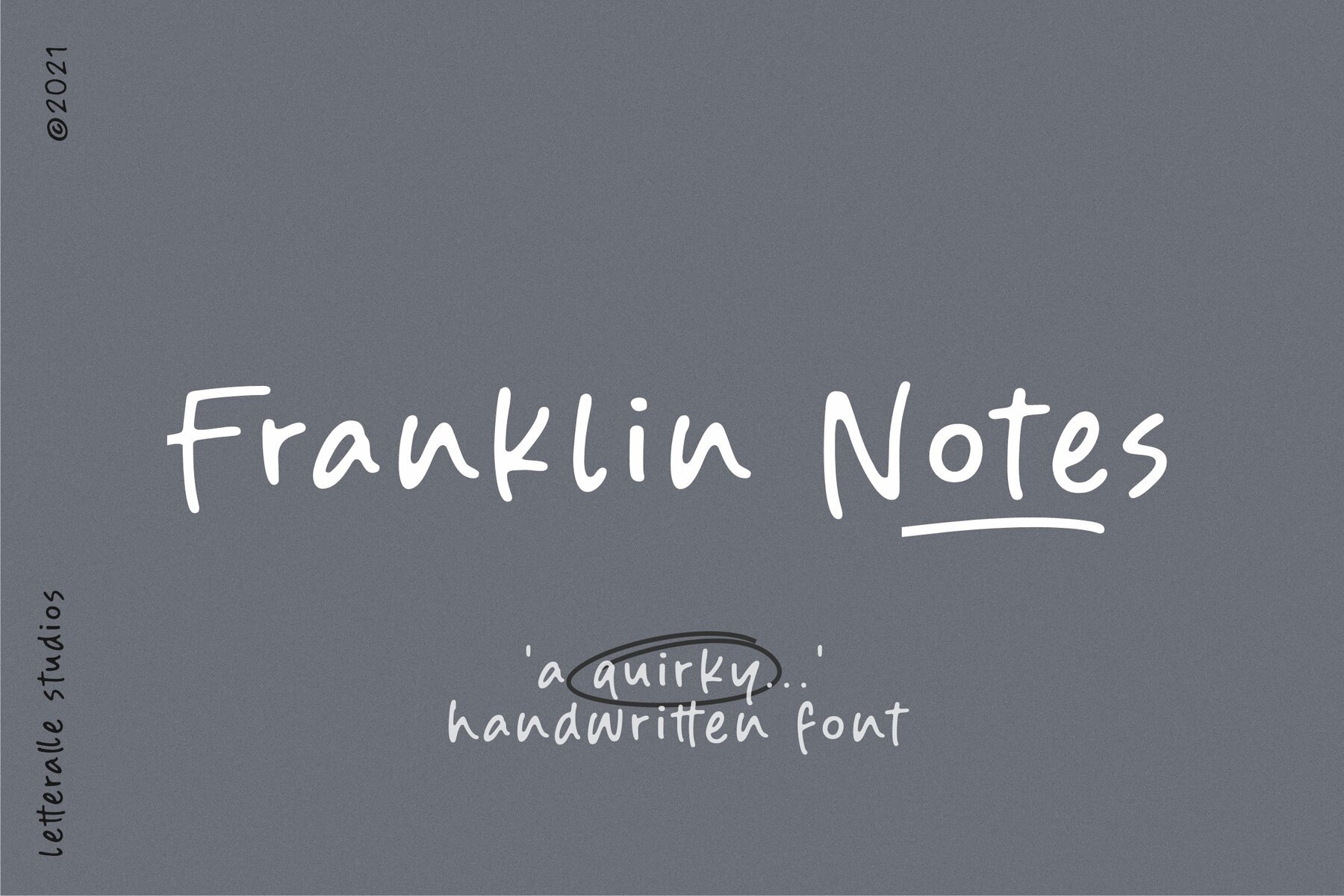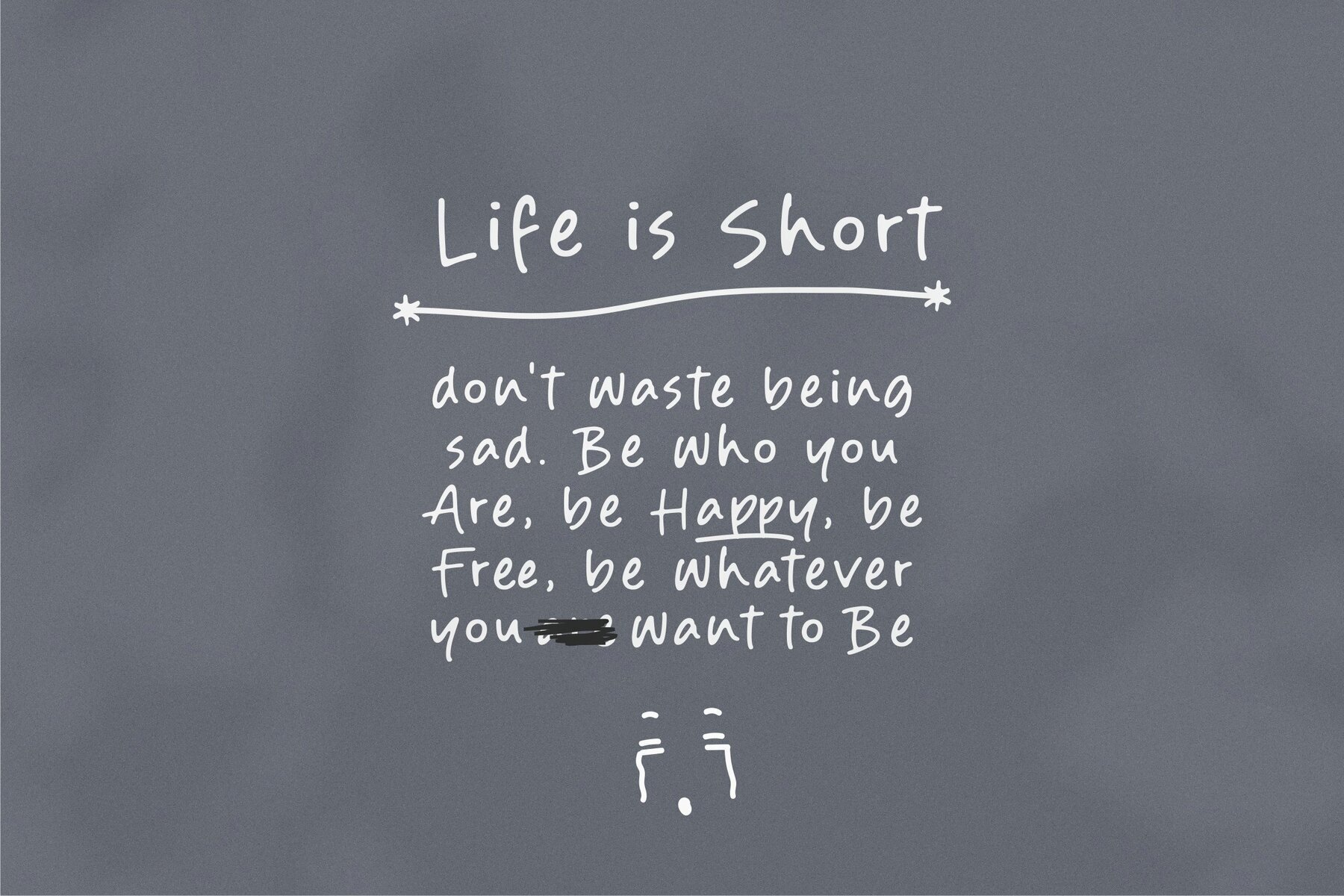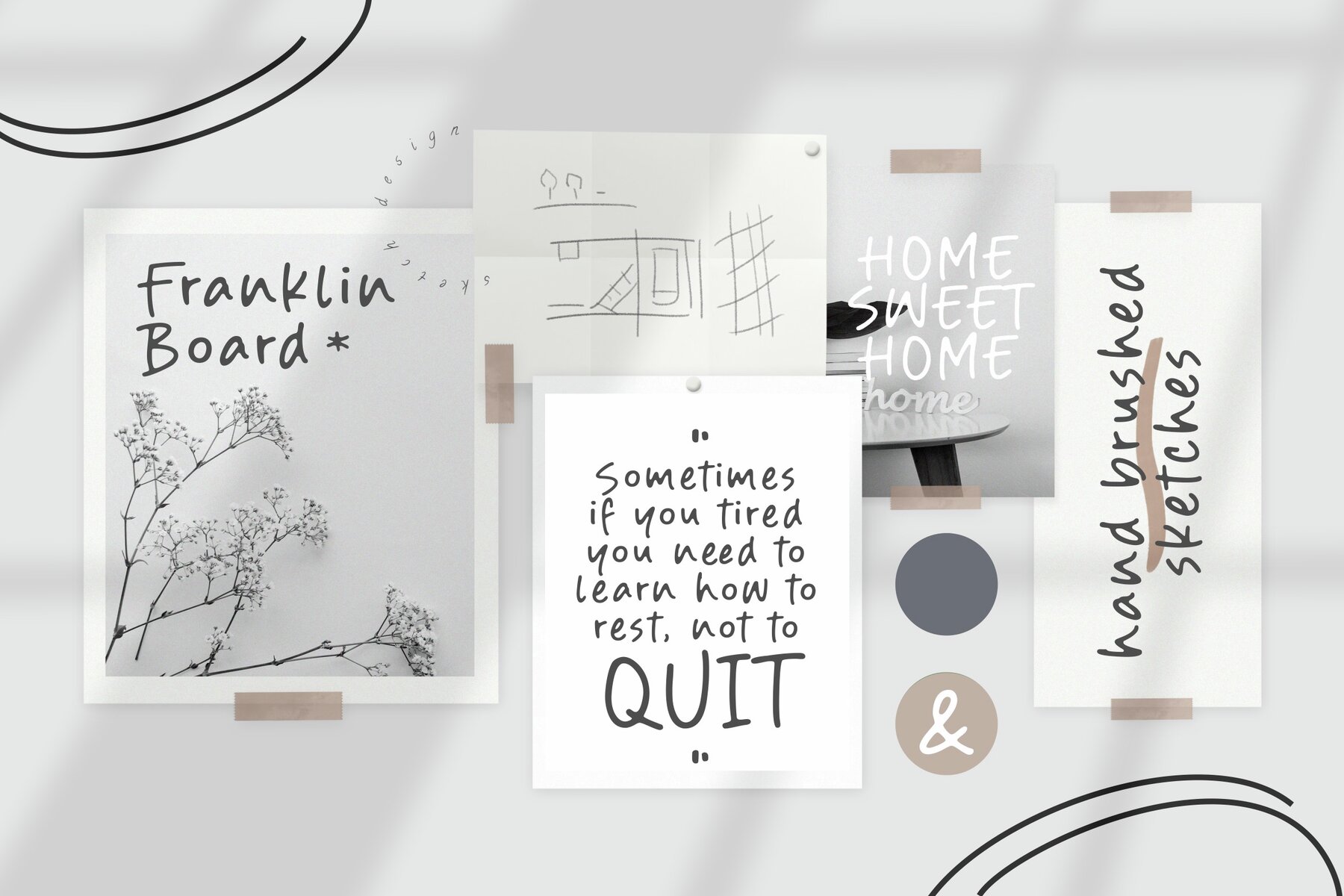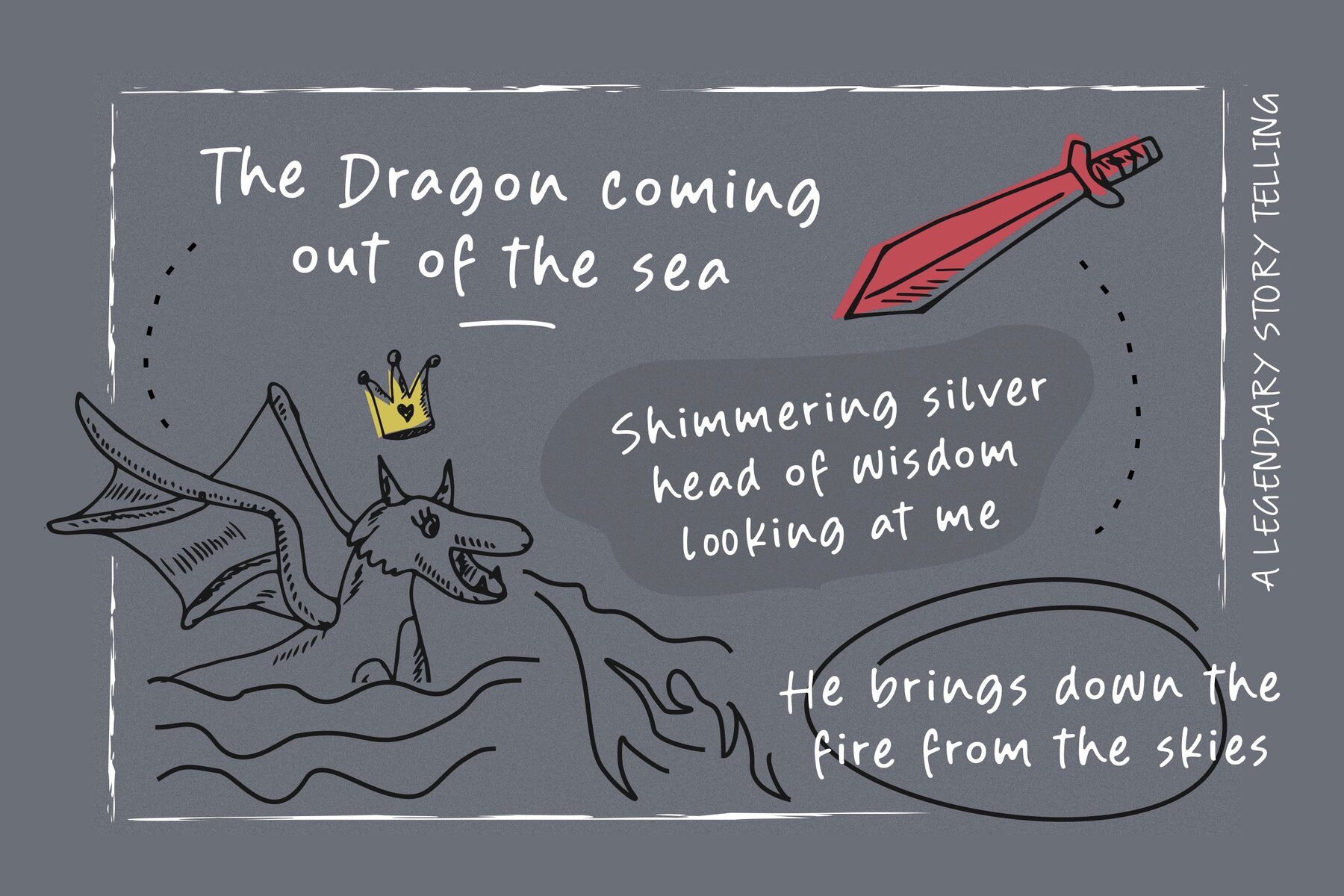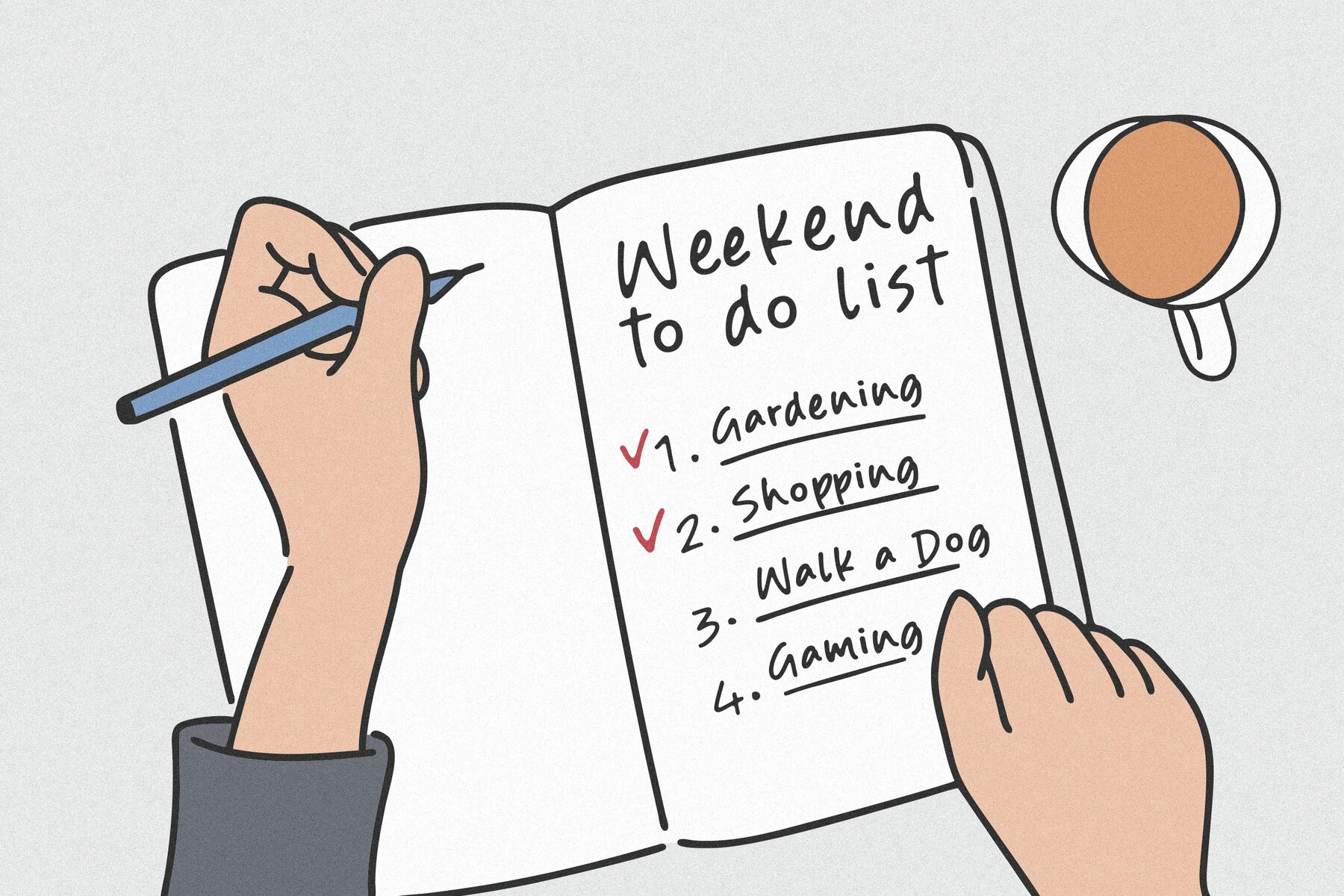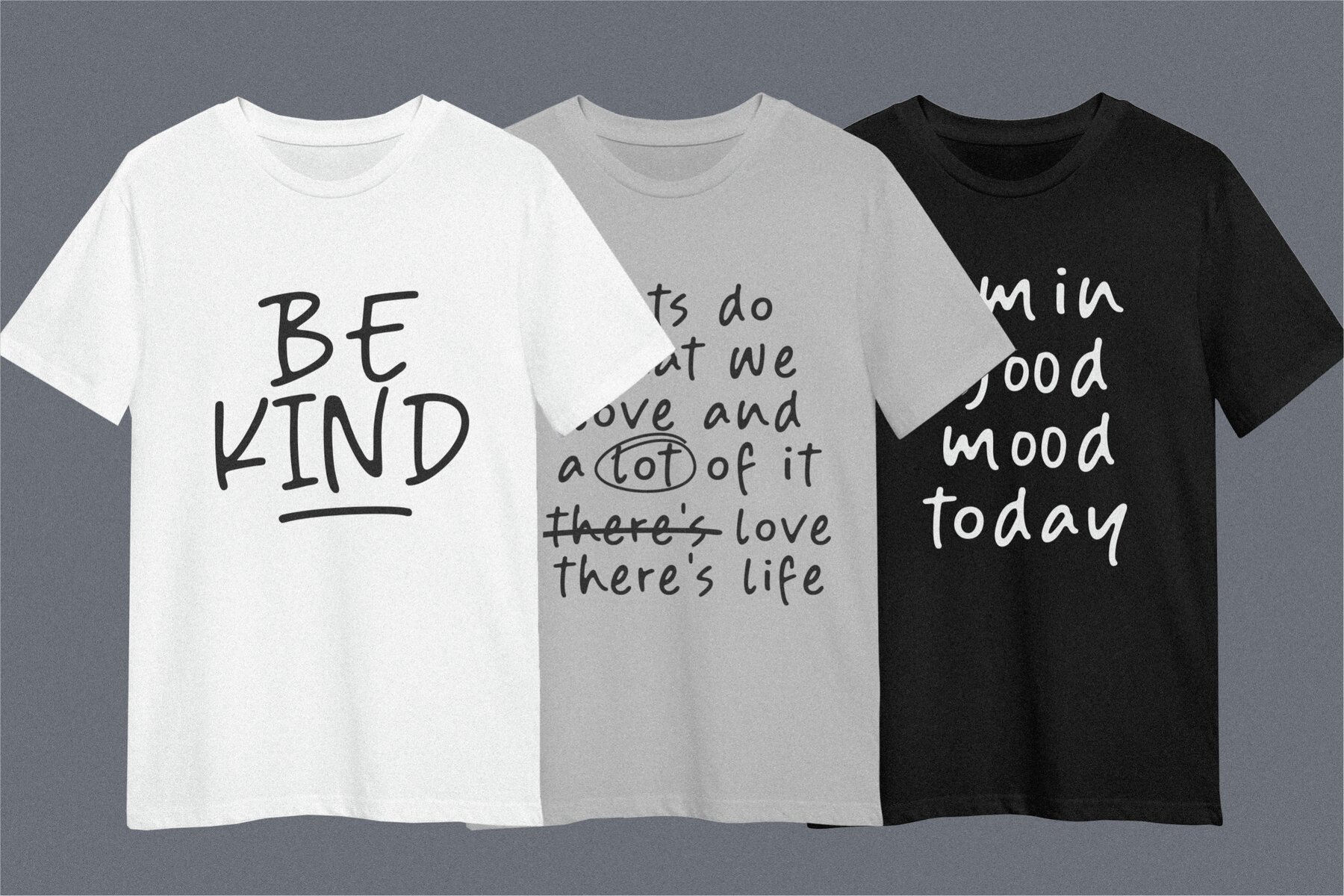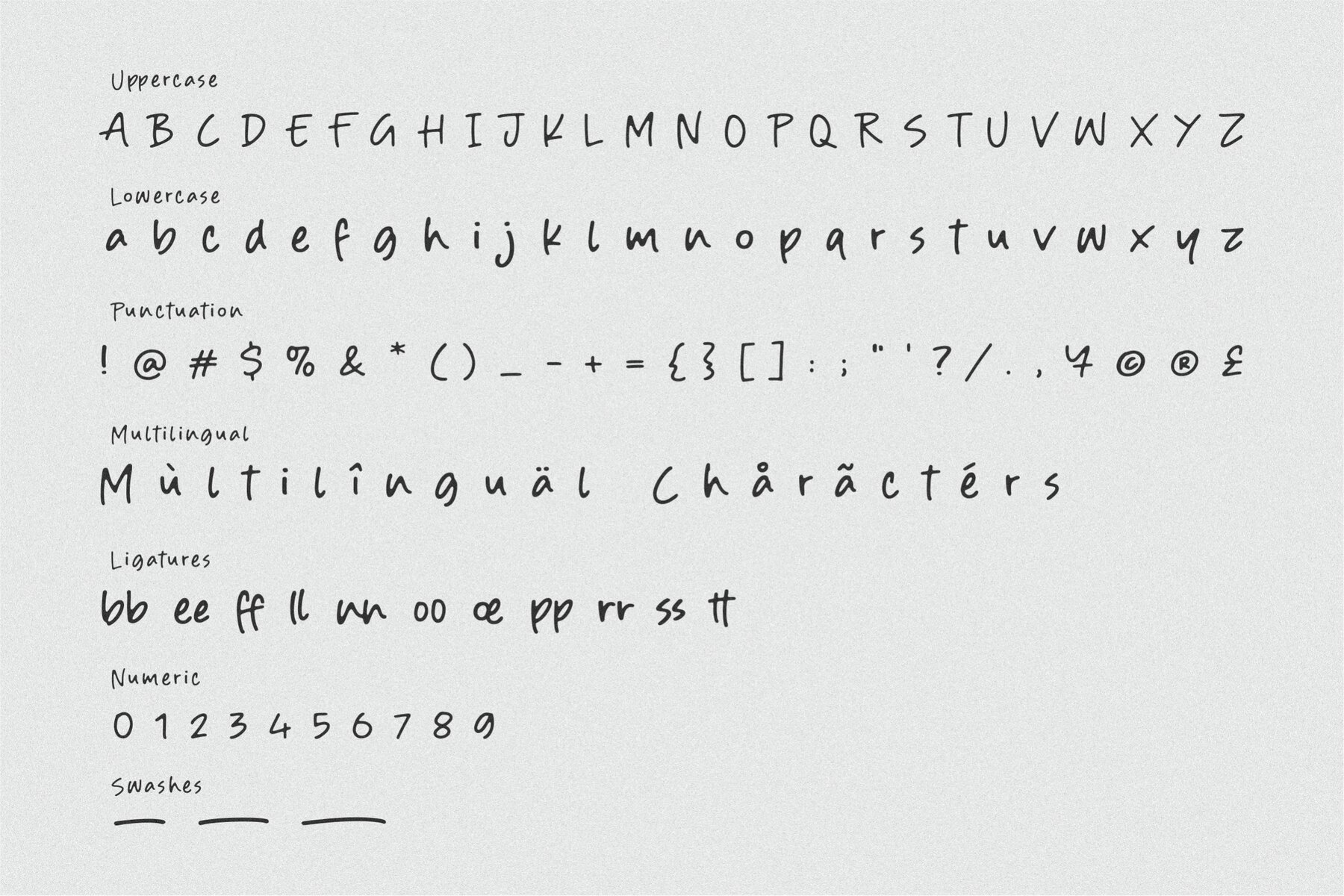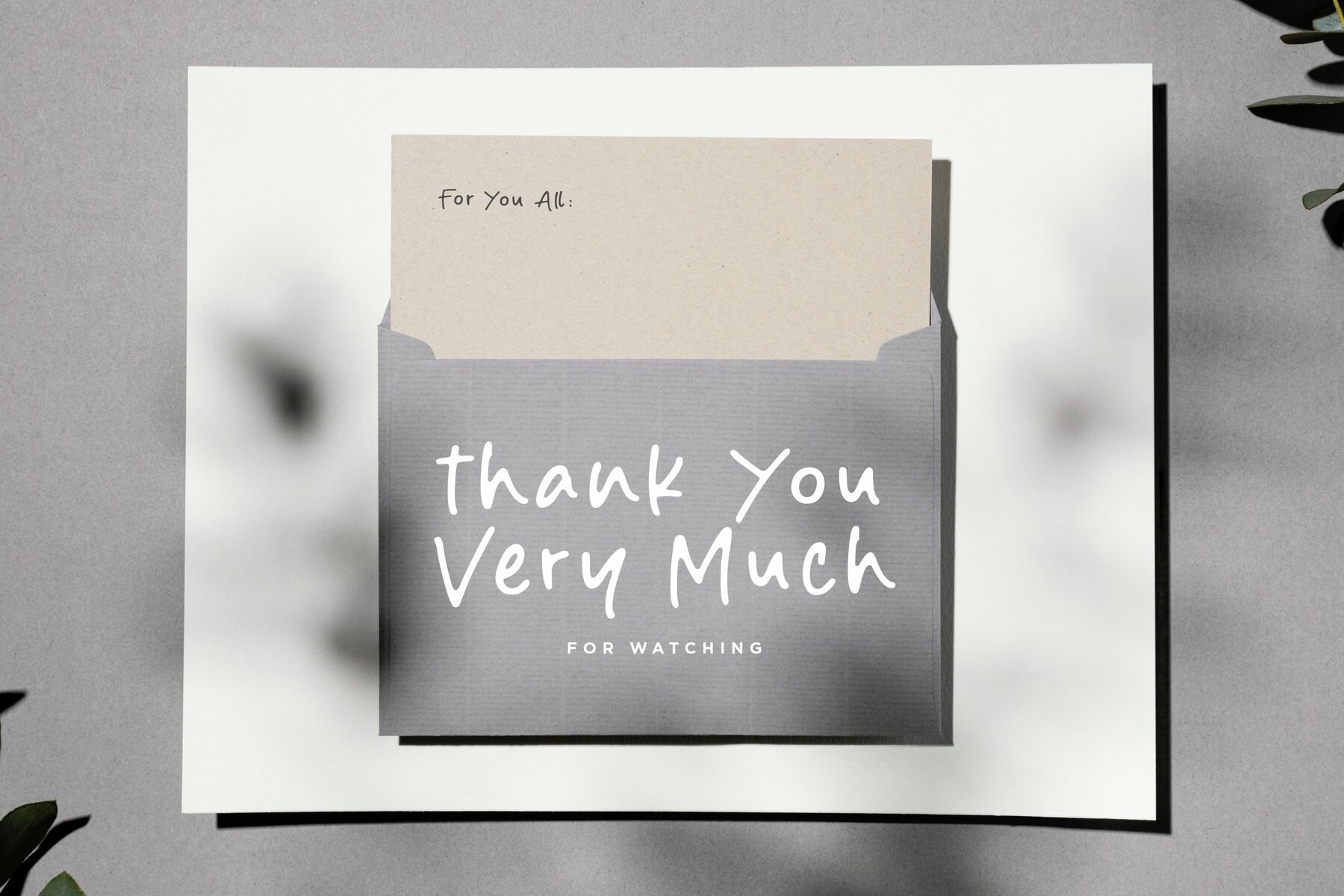
Franklin Notes Font
Franklin Notes Regular
Franklin Notes is a unique handwritten display font, perfect for adding a personal touch to a variety of projects. Ideal for handwriting logos, T-shirts, merchandise, quotes, social media posts, and advertising.Franklin Notes: Quirky Handwritten Font Display